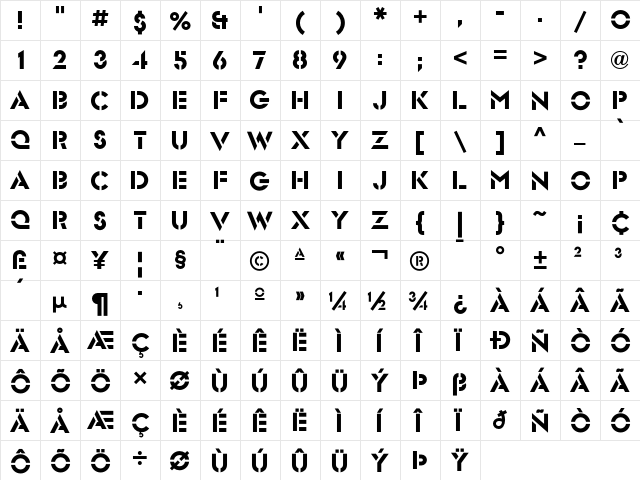
FuturaStencilICG Regular
Design Context for FuturaStencilICG Typeface
FuturaStencilICG channels digital-age aesthetics through its sharp, structured letterforms — ideal for brands that want to signal innovation.
Pro Tip: Use FuturaStencilICG in combination with a neutral sans for body text. Let it define the brand voice in headlines while keeping reading comfortable elsewhere.